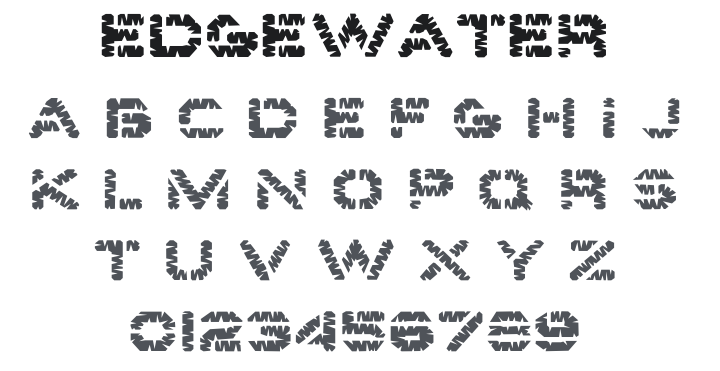
Edgewater Font
About Edgewater
Edgewater is a distressed display typeface where every letterform appears warped, wrinkled, and torn at the edges — as if the paper it was printed on got soaked and then dried crinkled. The result is a uniquely organic, water-damaged texture that feels eerily tactile. Perfect for horror titles, survival-themed designs, mystery posters, nautical aesthetics, and anything needing a decayed, weather-beaten look.